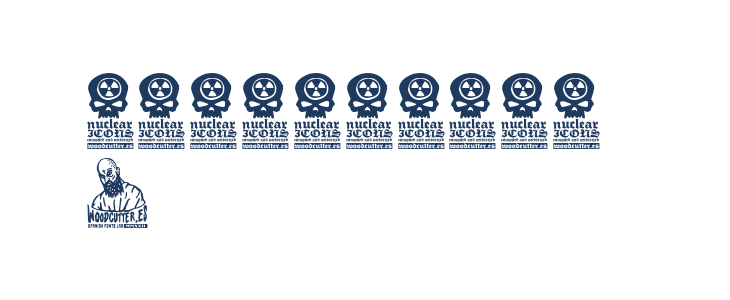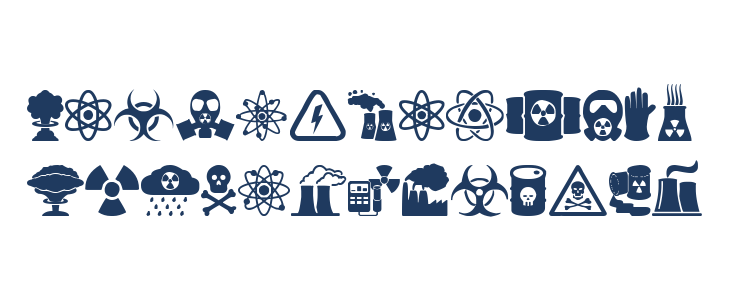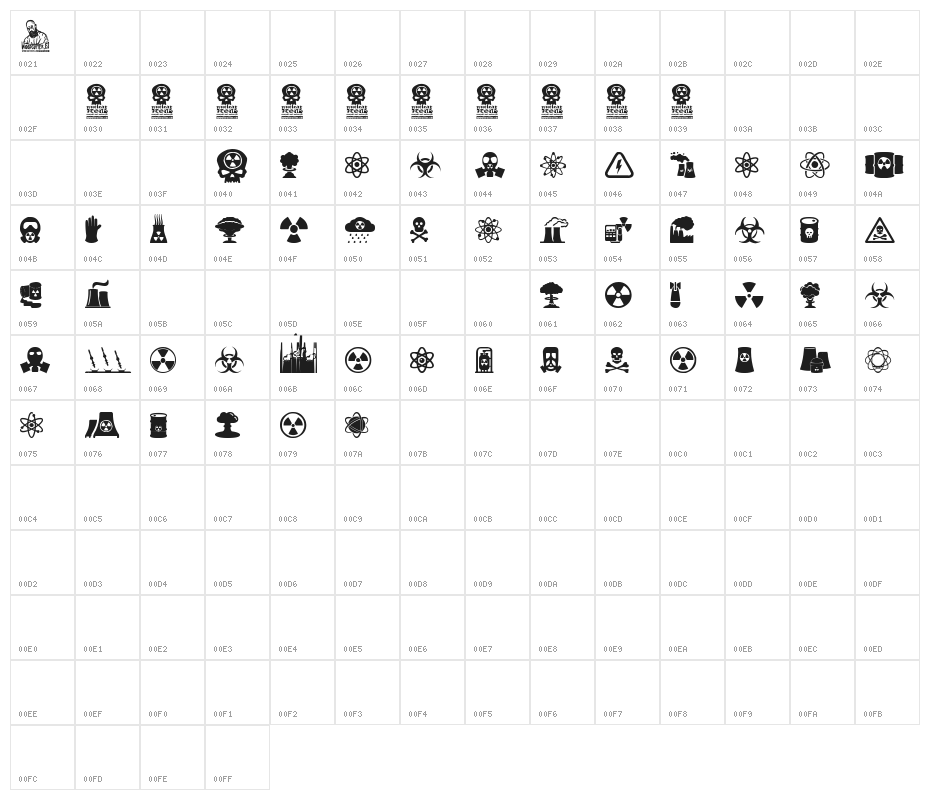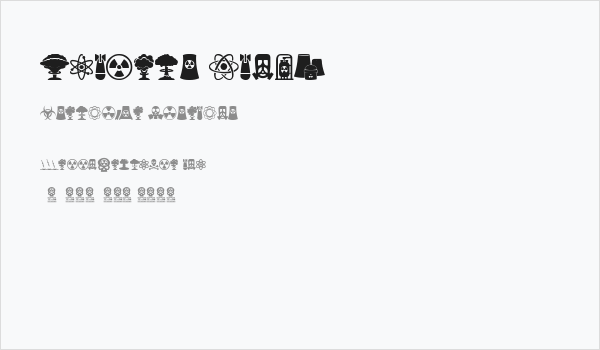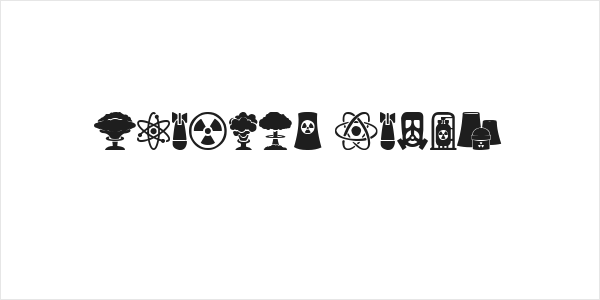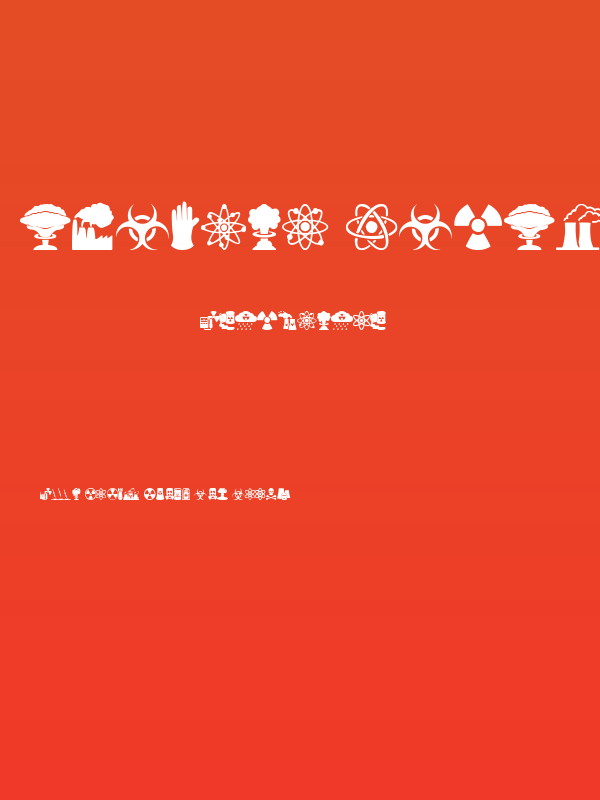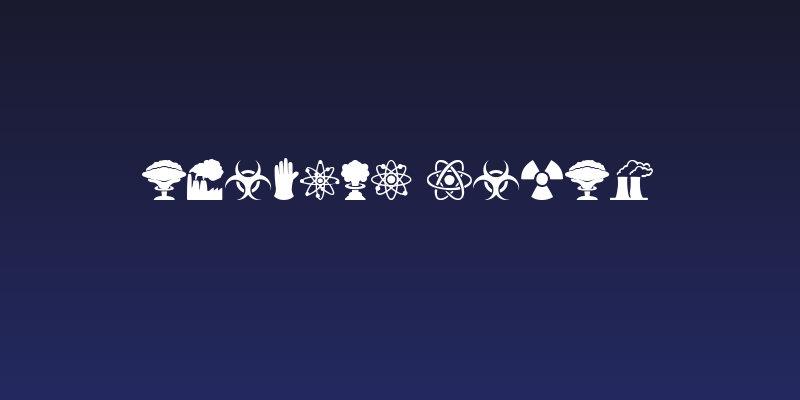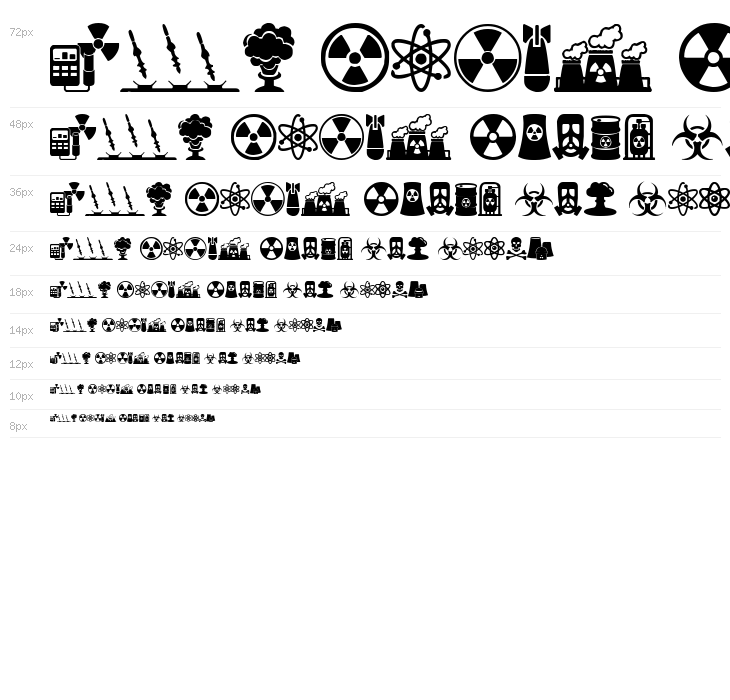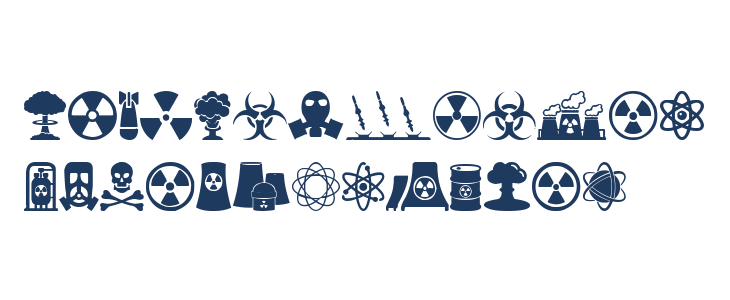
Nuclear Icons Font
Nuclear Icons Description
A collection of bold, high-contrast nuclear and hazard-themed pictograms, including symbols like radioactive signs, gas masks, power plants, skulls, and warning icons. The icons are solid black silhouettes with clear, simple shapes and no internal detail, designed for maximum recognizability and impact.
| Overall Style | Decorative, Modern, Industrial |
| Use Case | Icons, Logos, Signage, Posters |
| Proposed Projects | Warning signs, educational materials, infographics, posters, safety manuals, themed graphic design projects. |